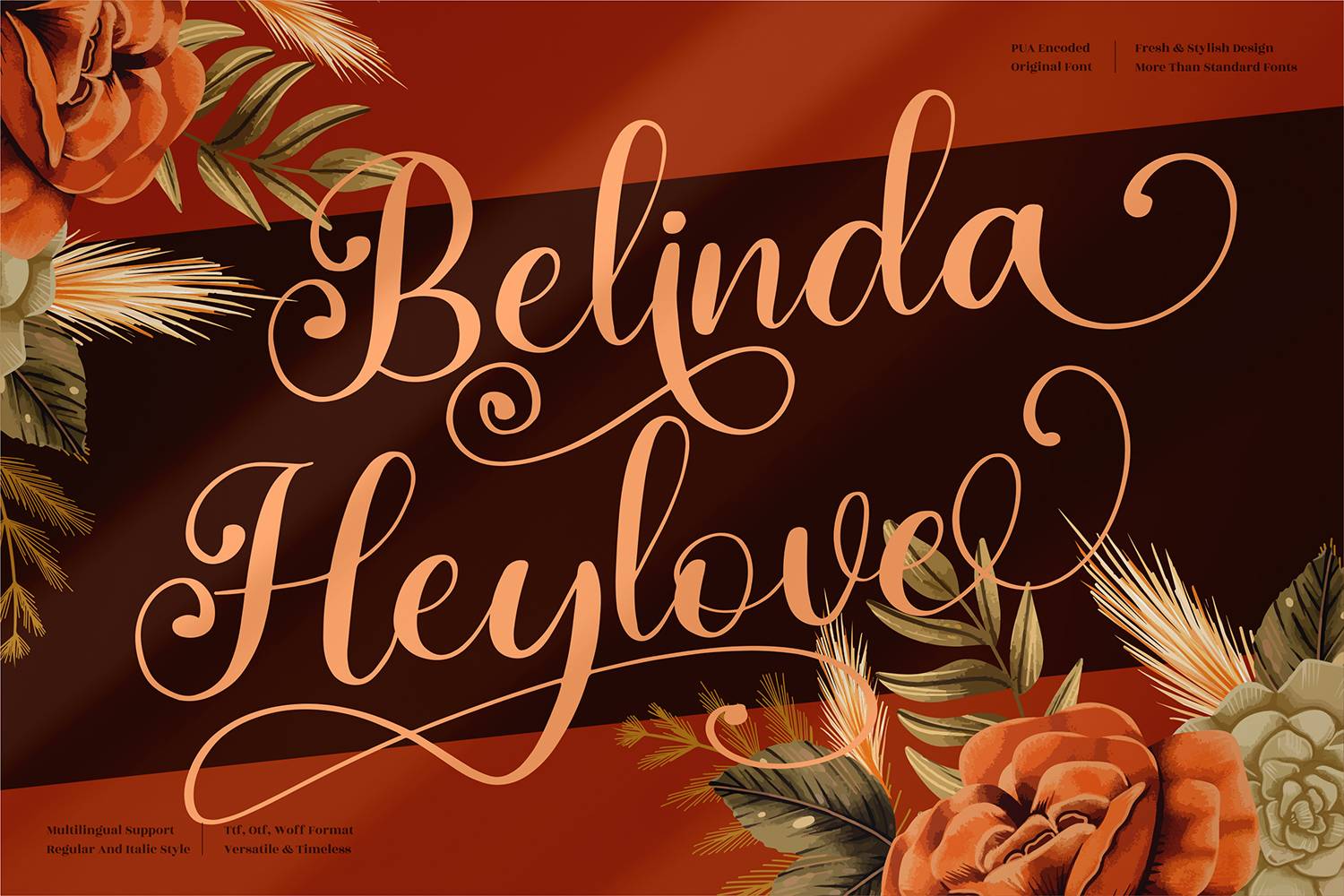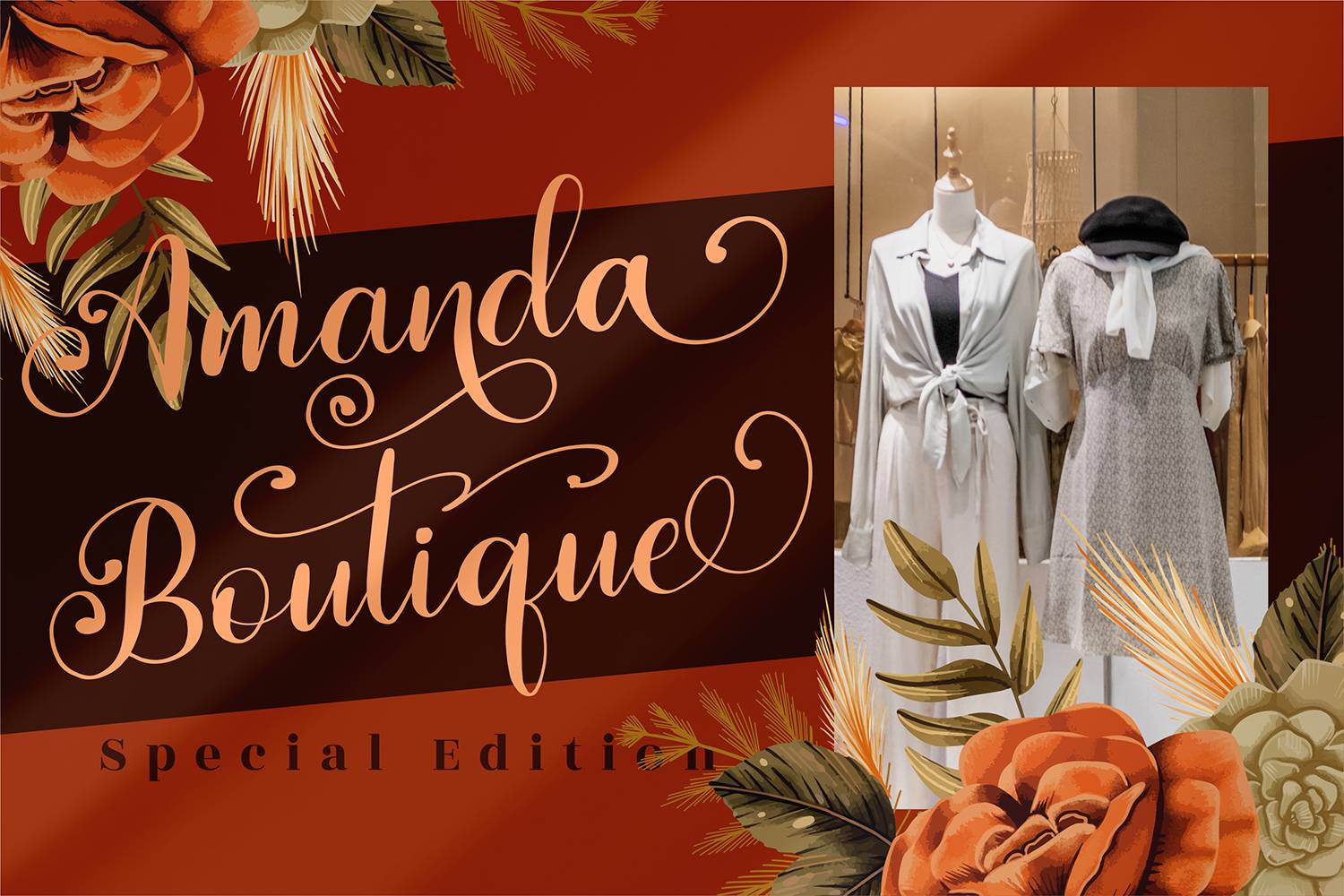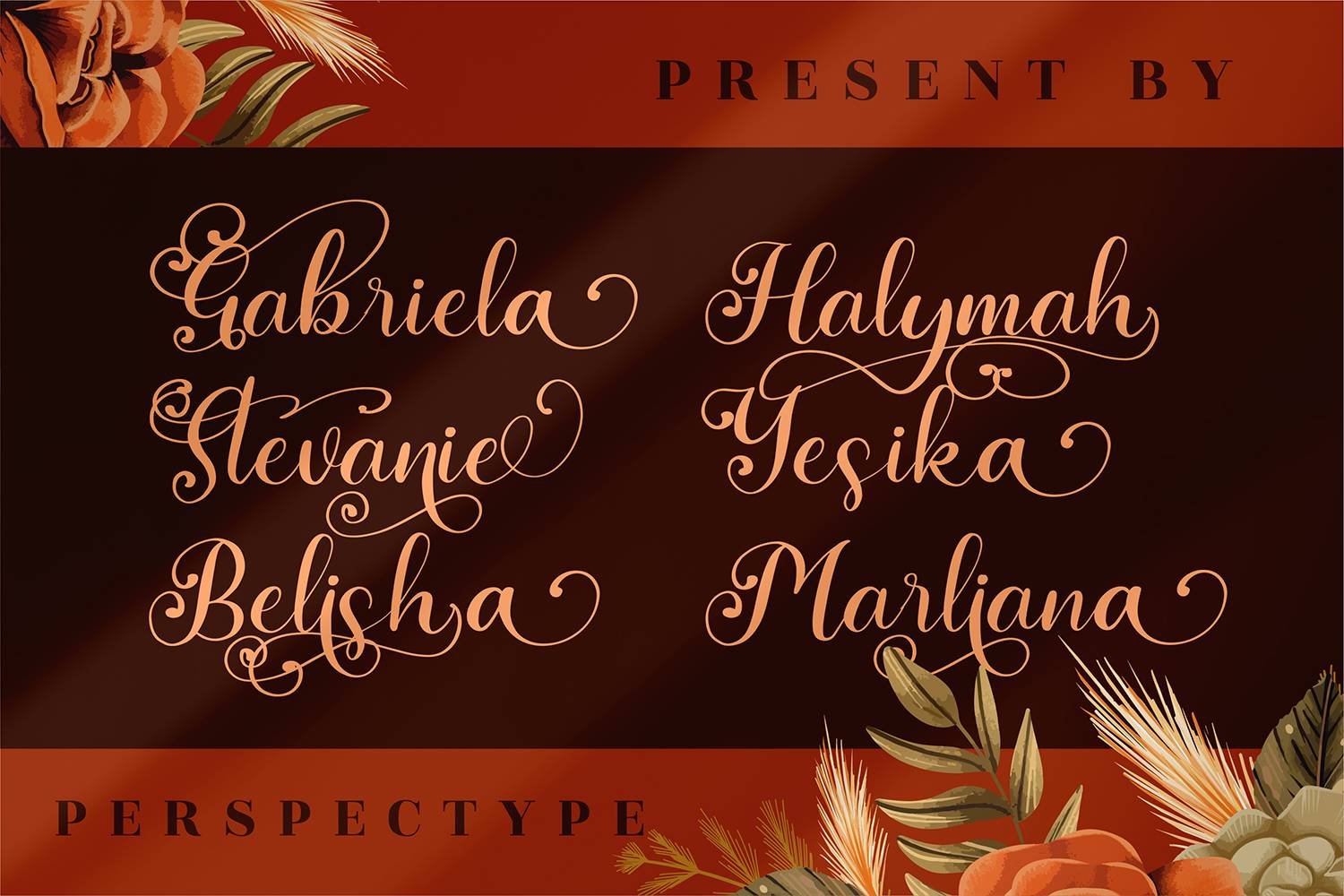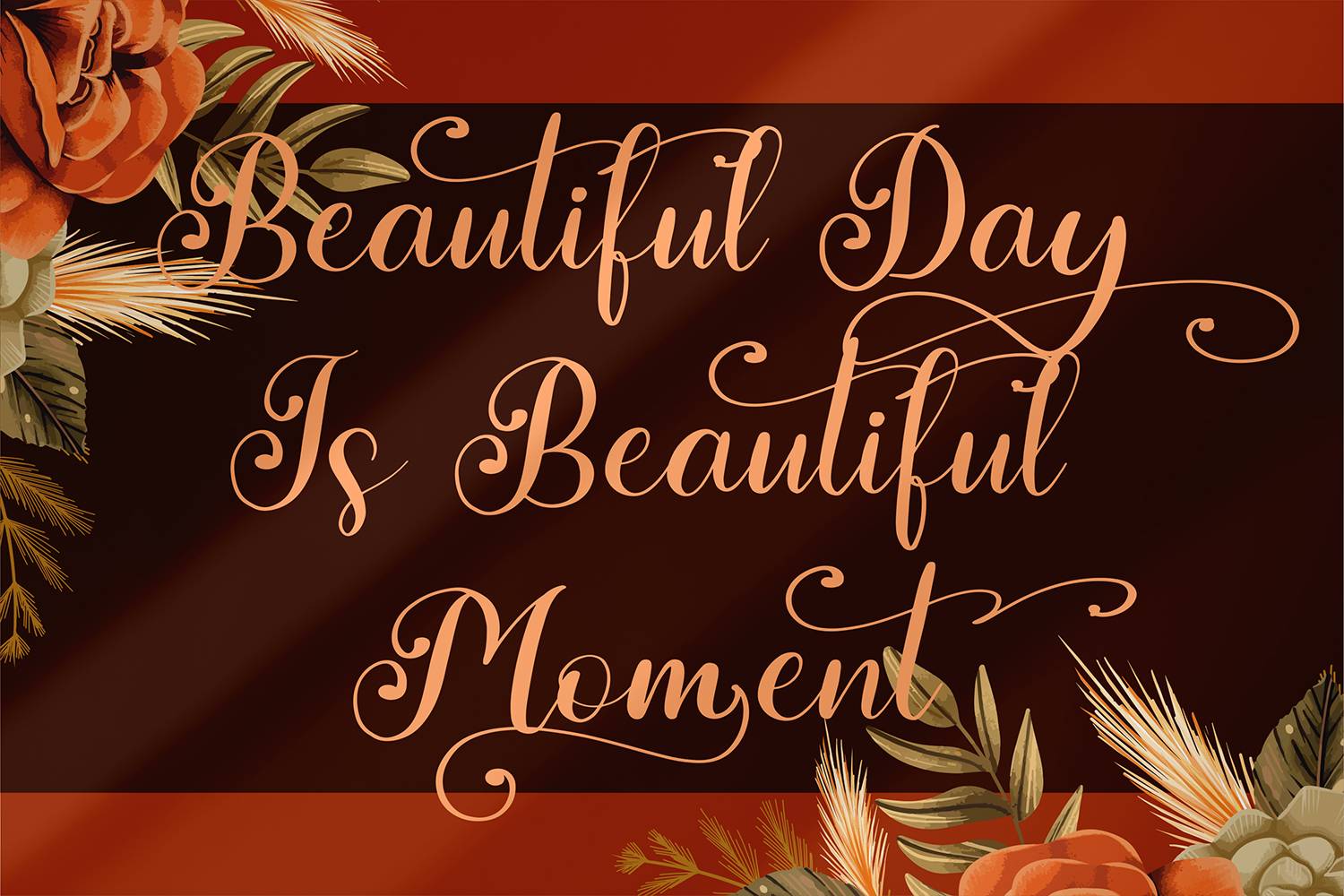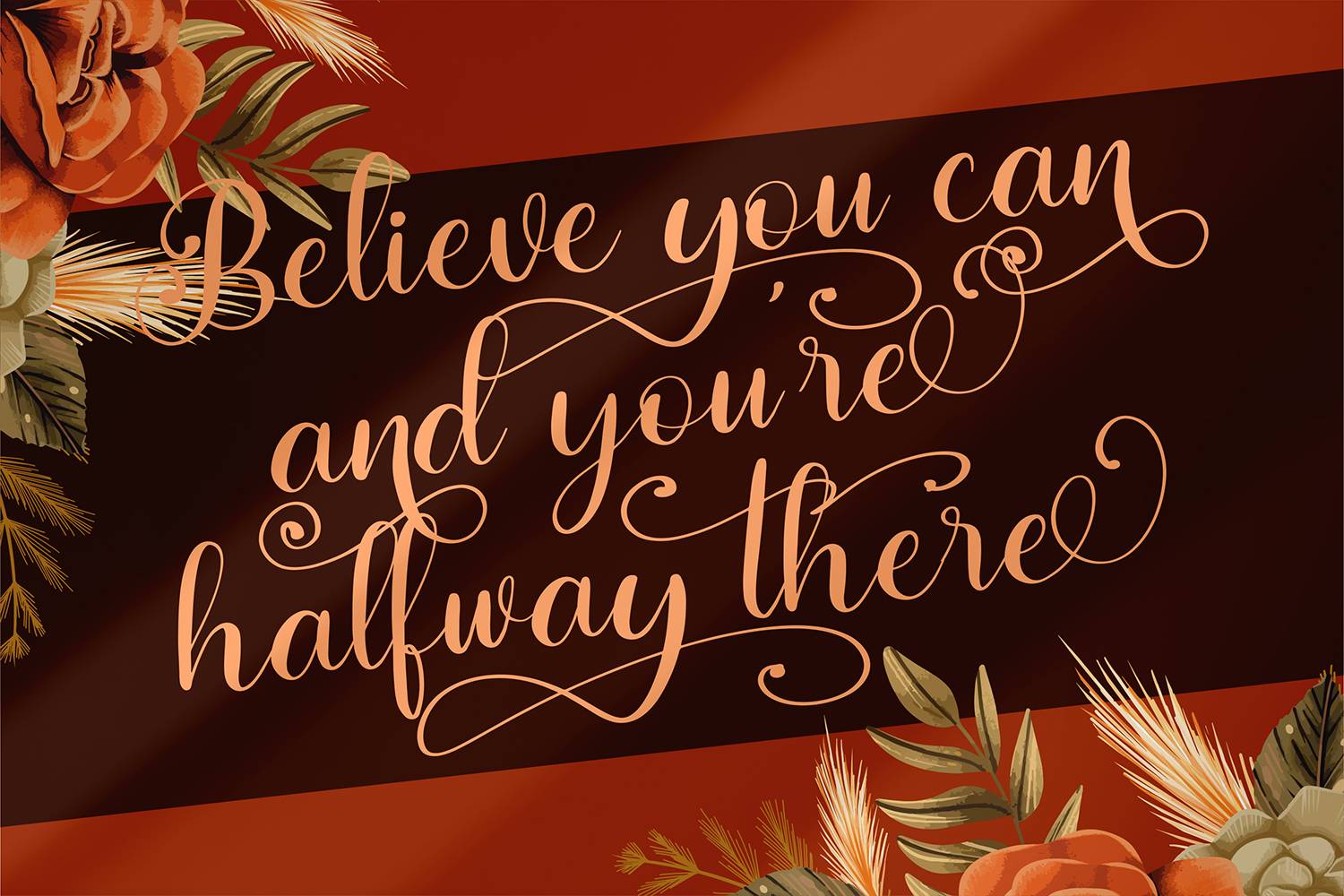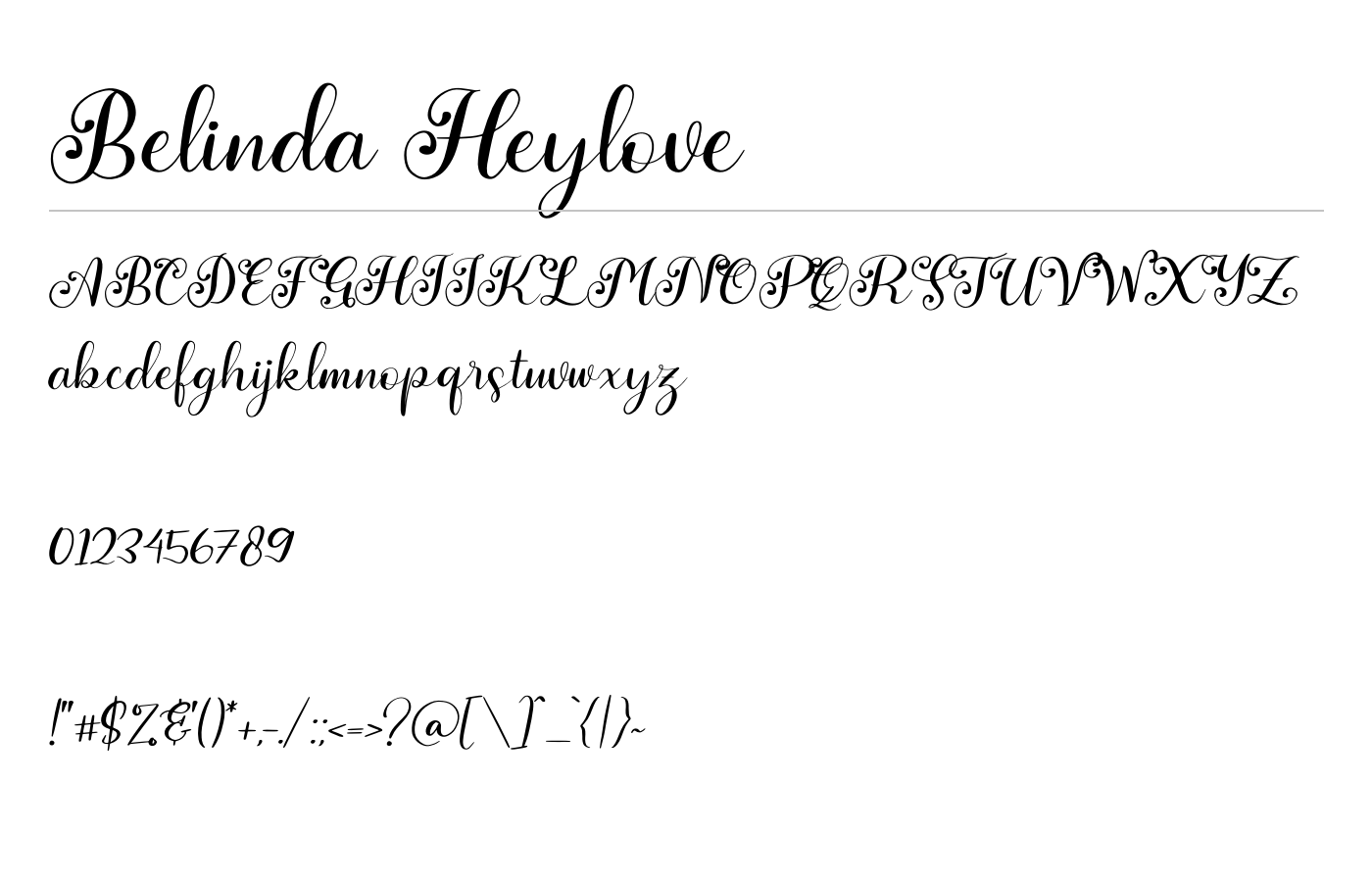
Belinda Heylove is an elegant script font characterized by its flowing, calligraphic strokes and refined, slightly ornate uppercase letters. With a delicate contrast between thick and thin lines, it exudes a graceful, romantic feel ideal for invitations, luxury branding, and creative headlines where a sophisticated, personal touch is desired. This font works beautifully in designs that seek to convey elegance and charm with a classic yet lively personality.
Belinda Heylove Font
About Belinda Heylove Font
| Font family | Belinda Heylove Font |